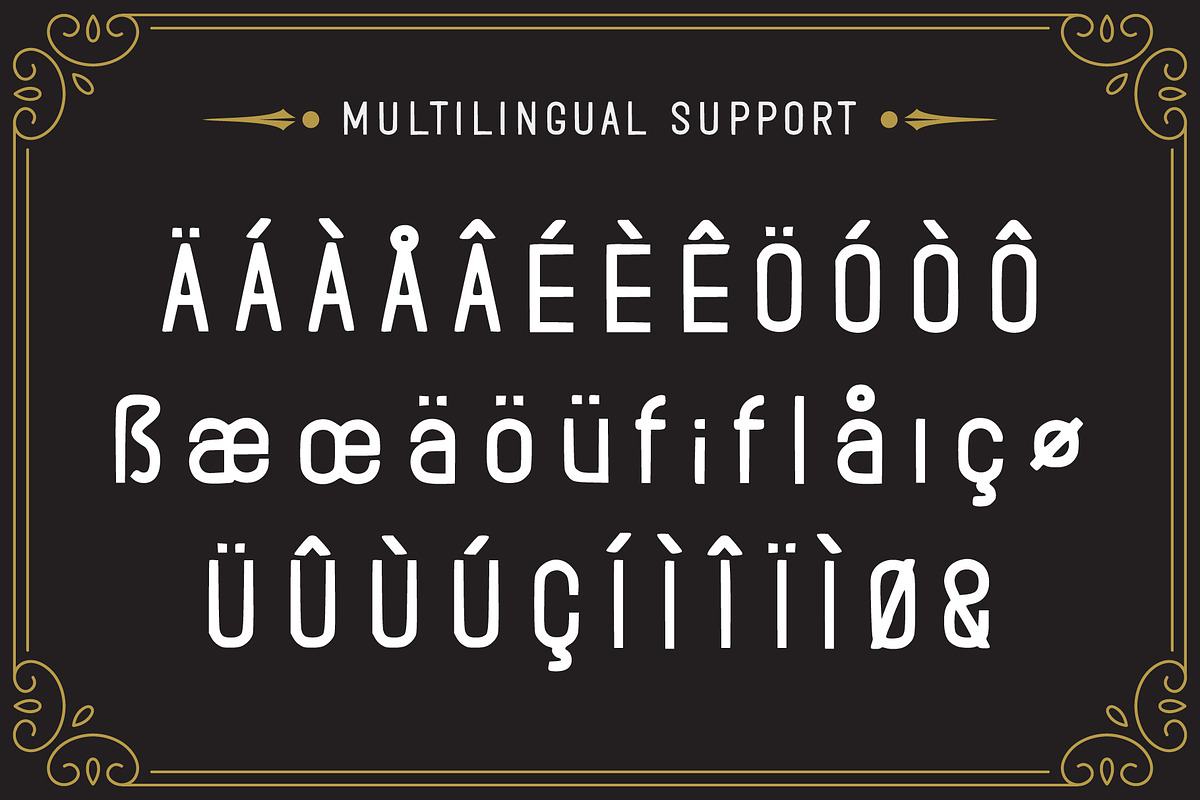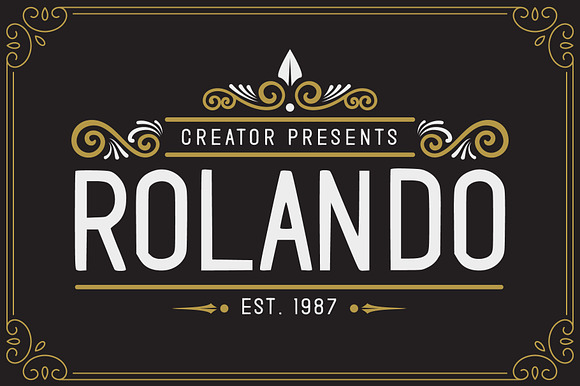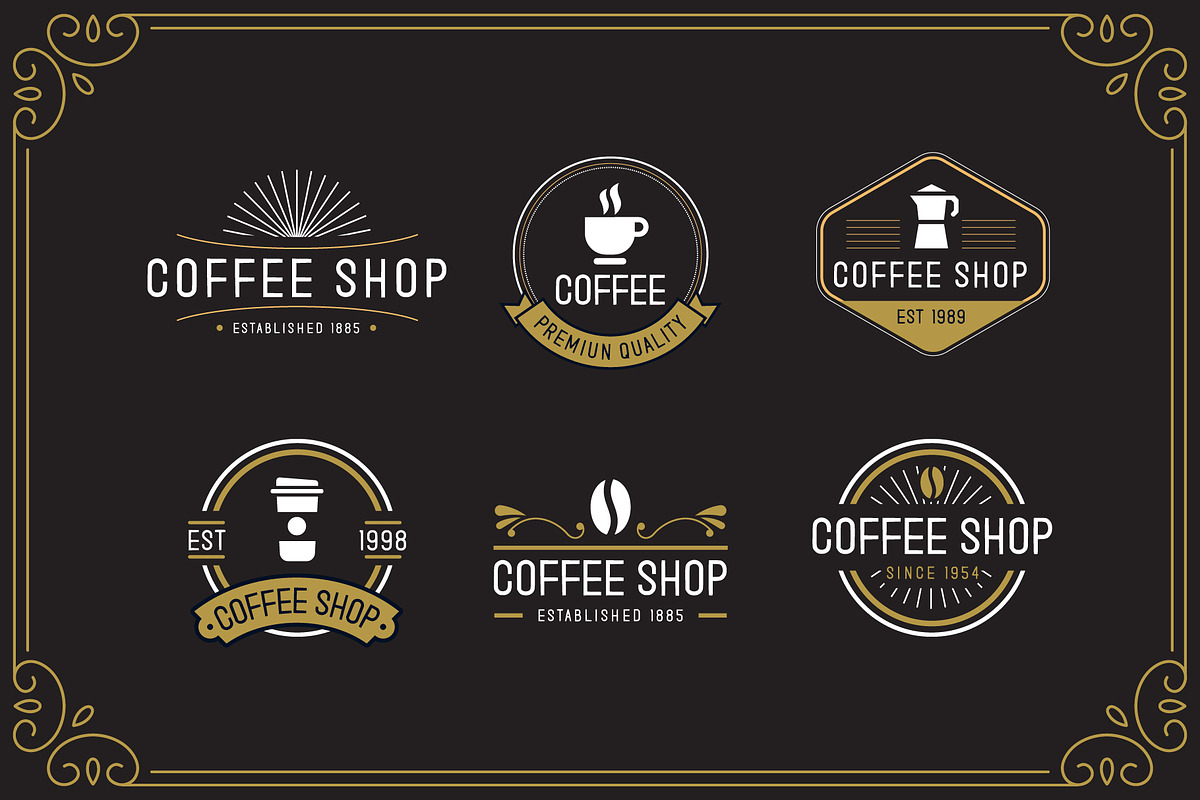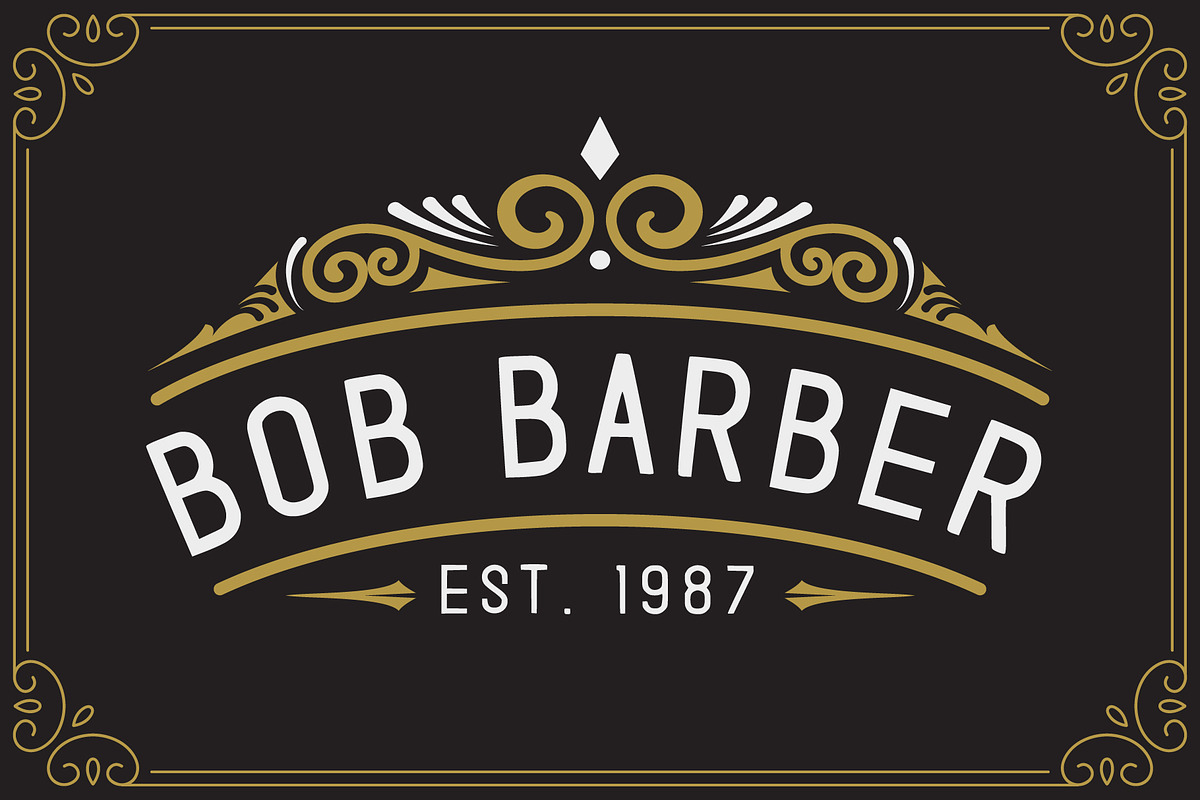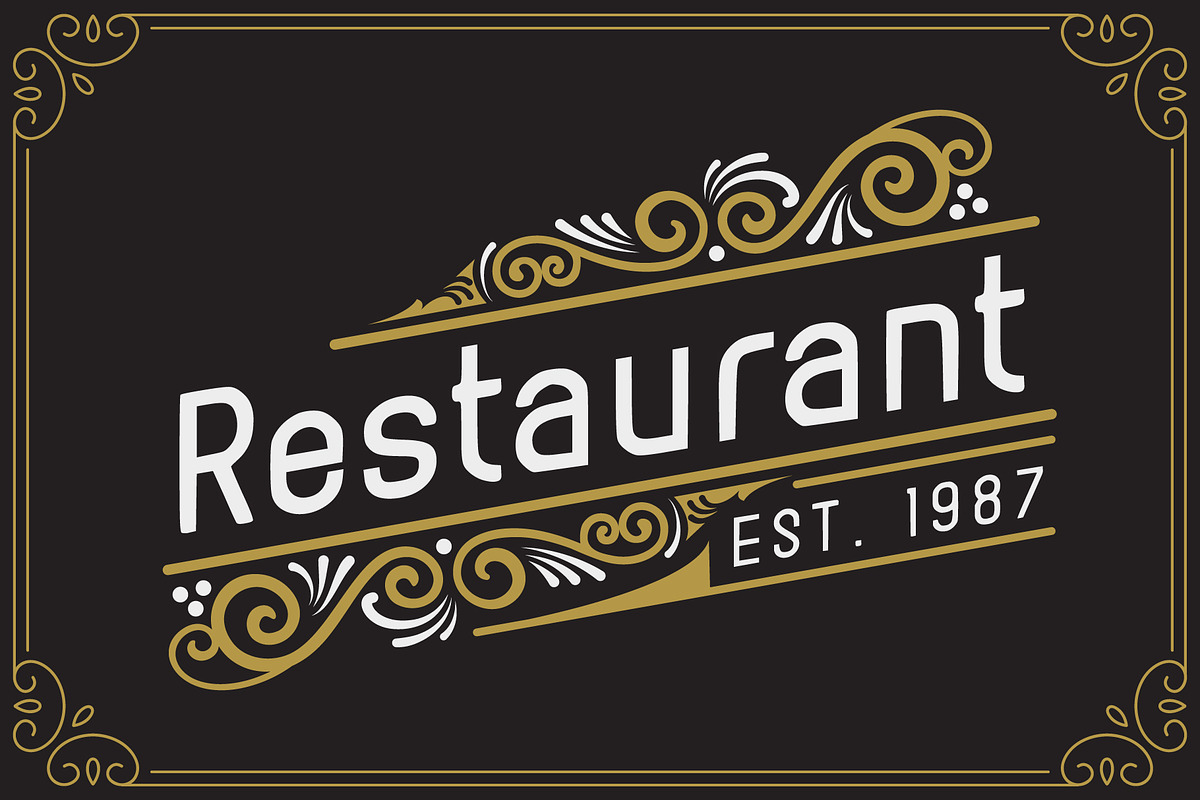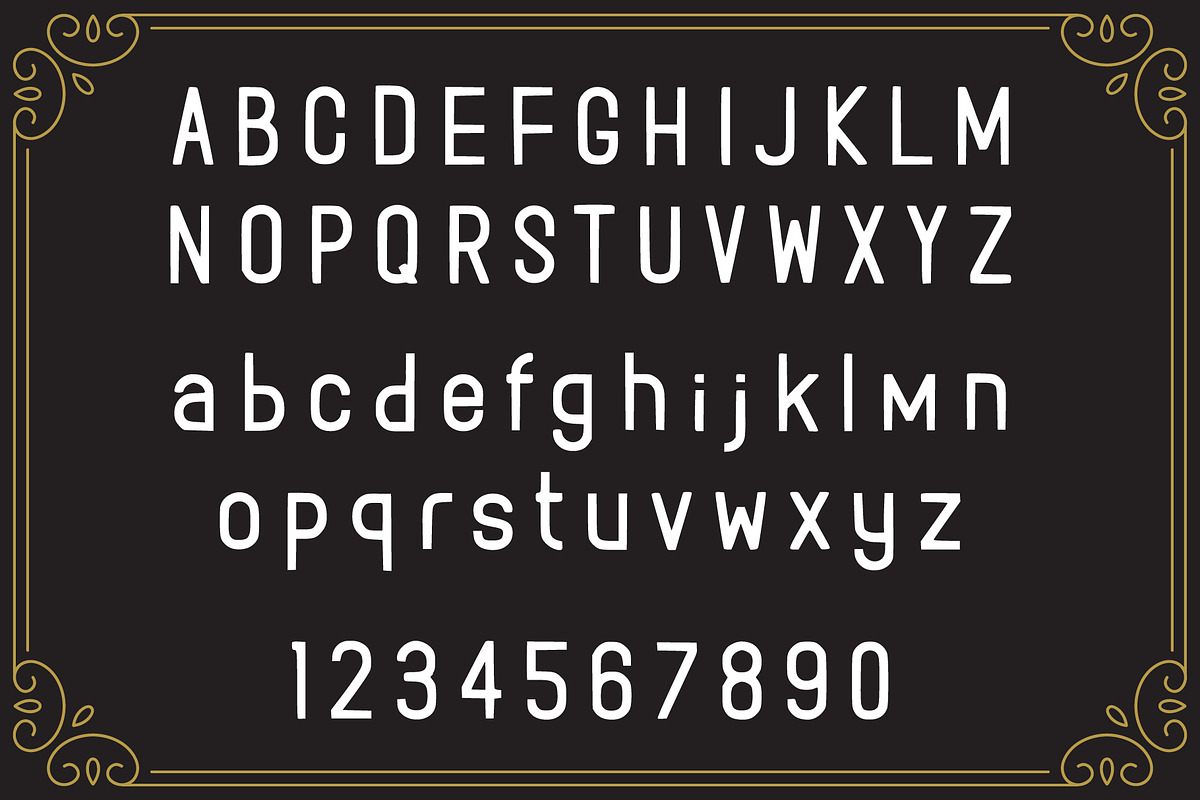
Rolando Vintage Font
Rolando Vintage Font, a brand new fonts with vintage look and style inspired from many vintage packaging and from typographic cover lettering. Perfect for designing cover, label, posters, logo, branding, etc who needs the vintage design structure.
Fonts include multilingual support
Rolando Vintage Font by Tosca Digital fits naturally into Branding, posters, packaging, typography.